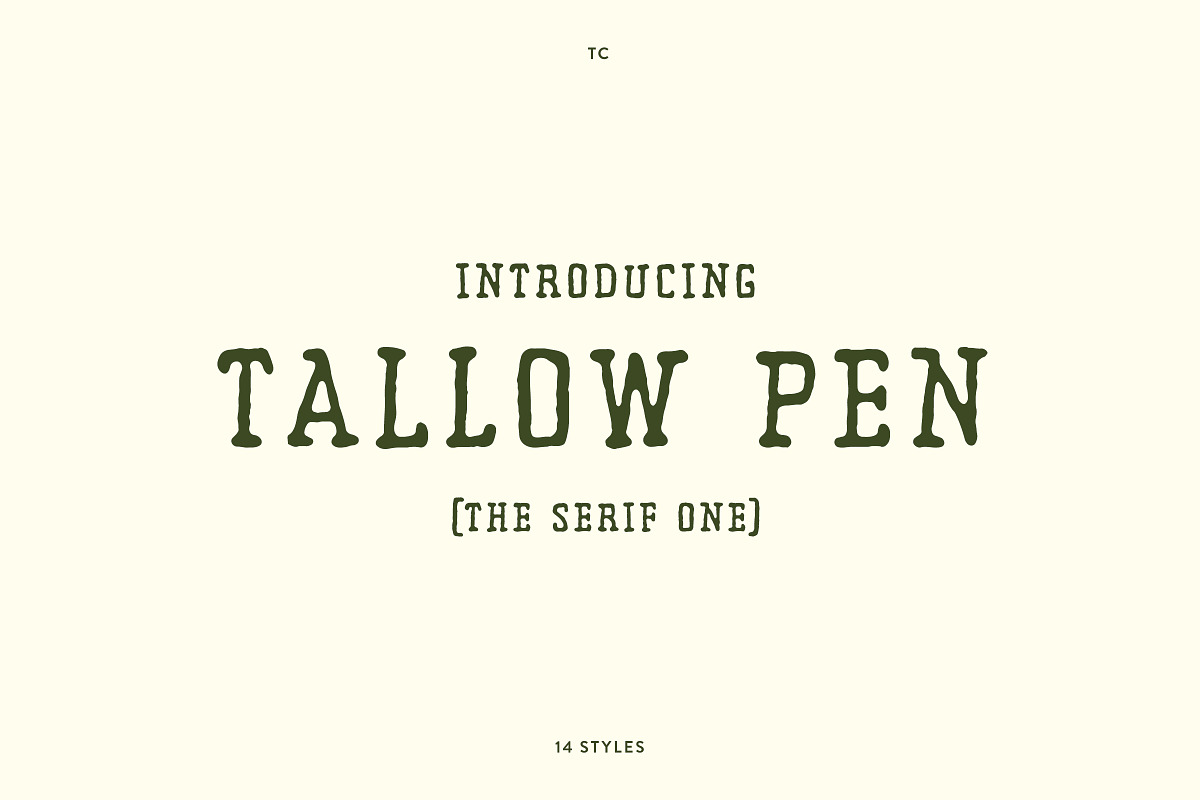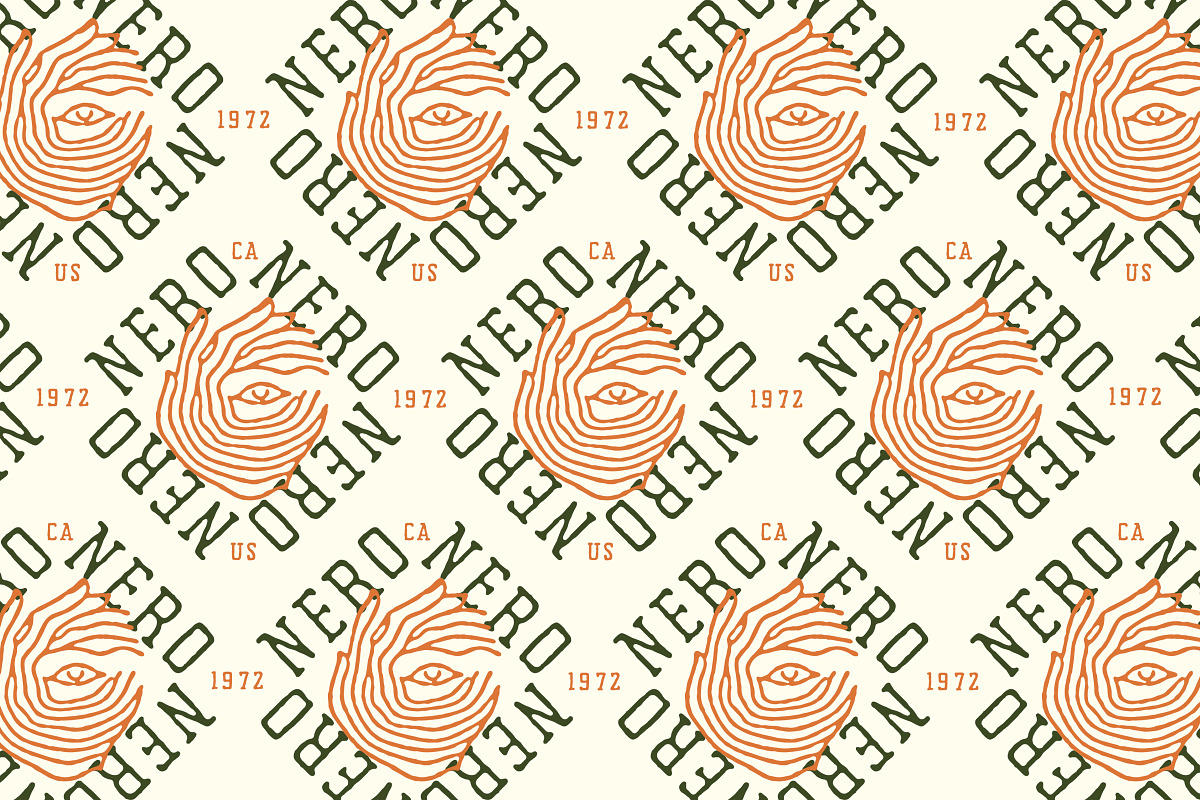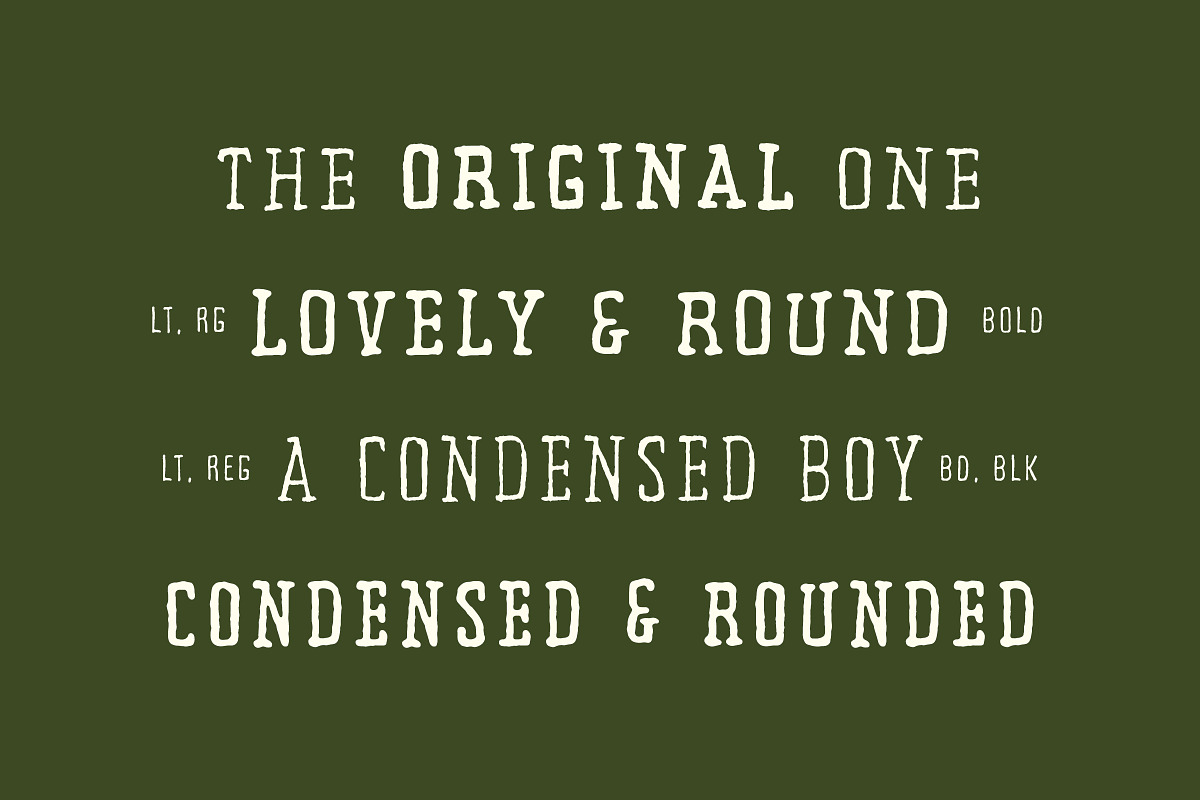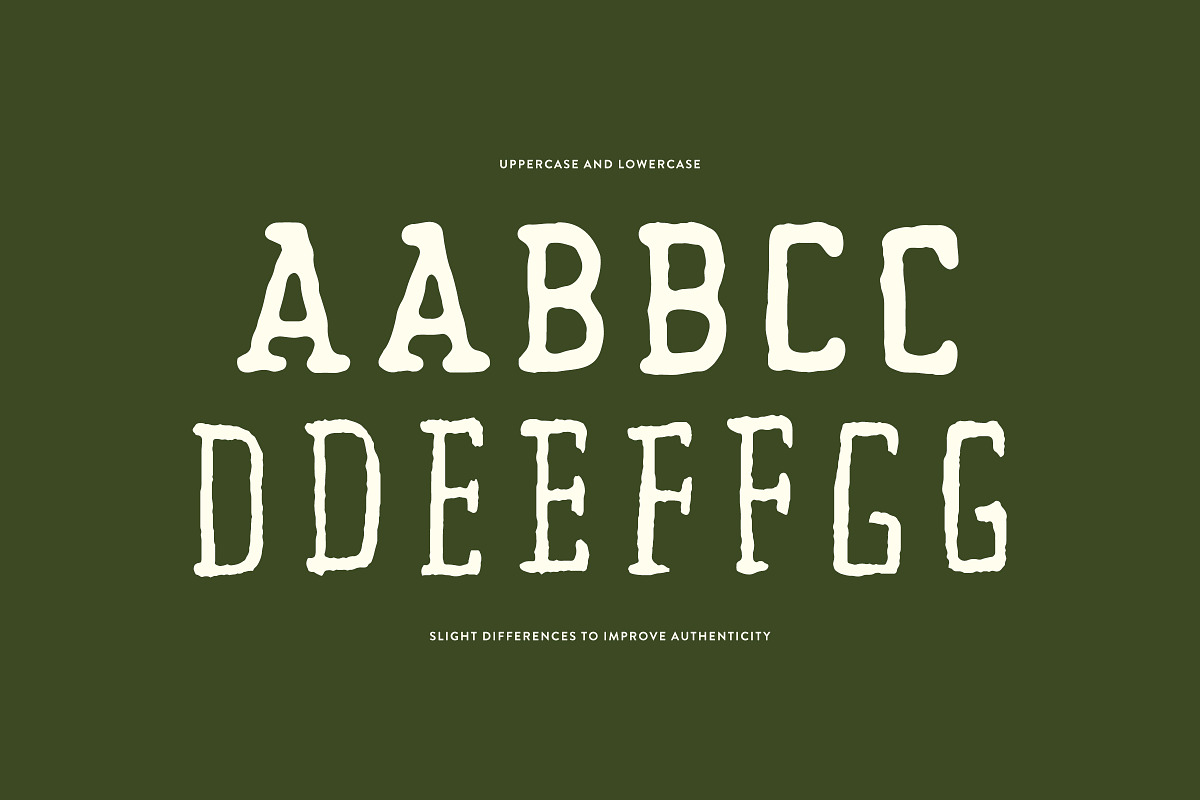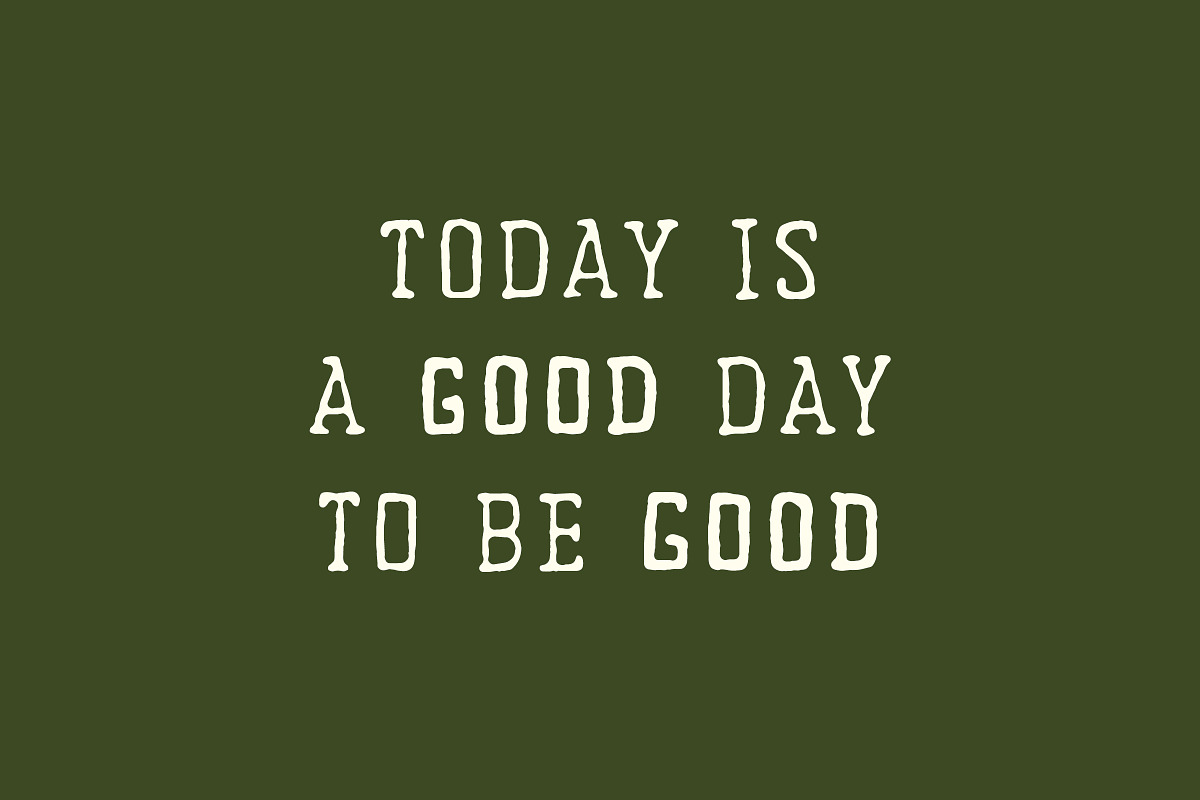
TC Tallow Pen Serif
Introducing Tallow Pen Serif – A rustic serif font family that exudes hand-crafted authenticity in every letter. With 14 styles/weights, Tallow Pen Serif brings organic charm and subtle quirks, perfect for projects that need a touch of artisanal warmth.
Each style is infused with personality, blending classic serif structure with gentle, rounded edges for a friendly yet refined look.
This is a full-caps font family; typing in lowercase delivers alternate letterforms, effortlessly adding authenticity by reducing repetitive letters.
From branding and logos to vintage-inspired designs, Tallow Pen Serif shines wherever handcrafted appeal is desired.
Complete with a full Latin 1 glyph set, Tallow Pen Serif supports a wide variety of languages.